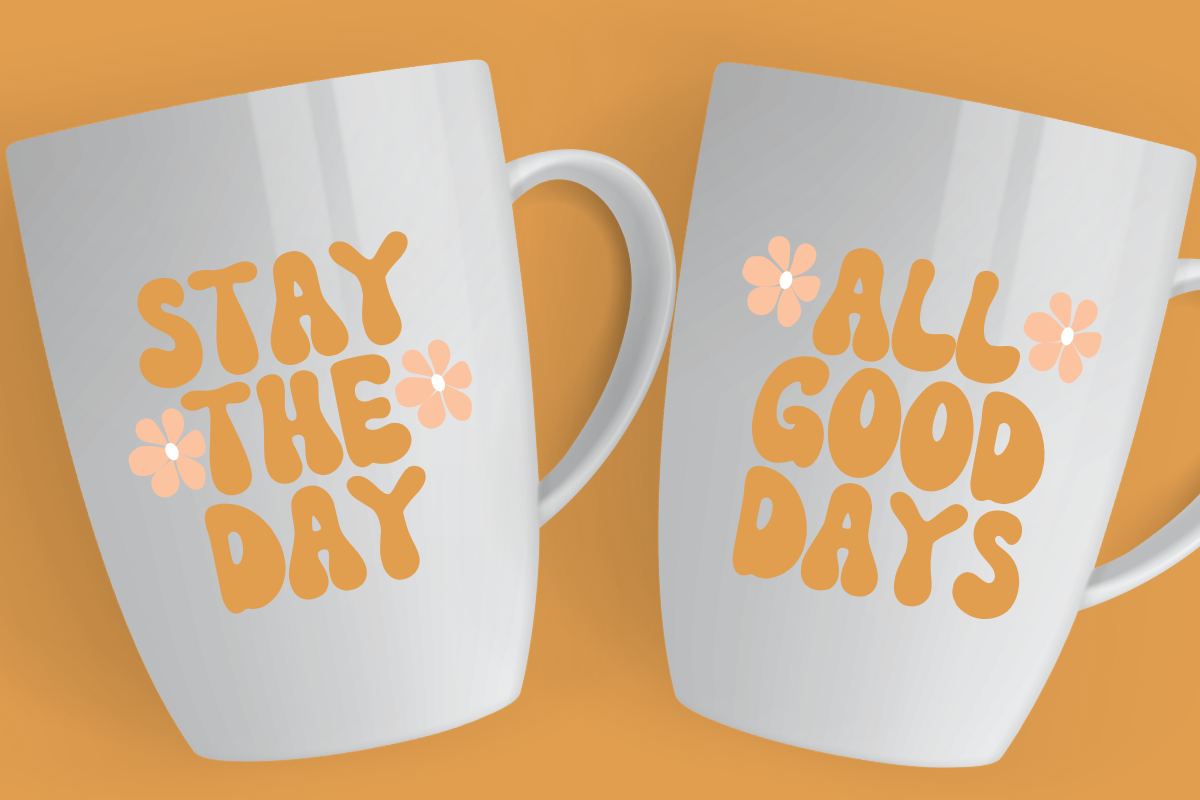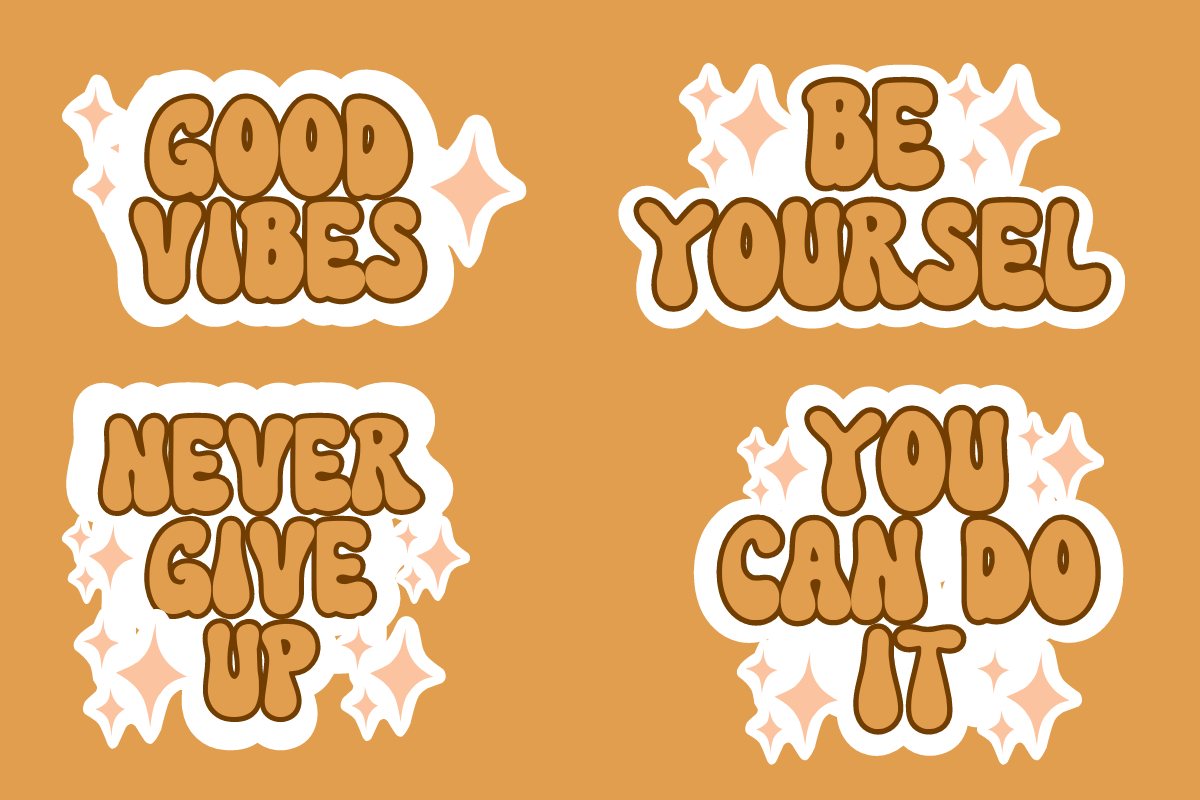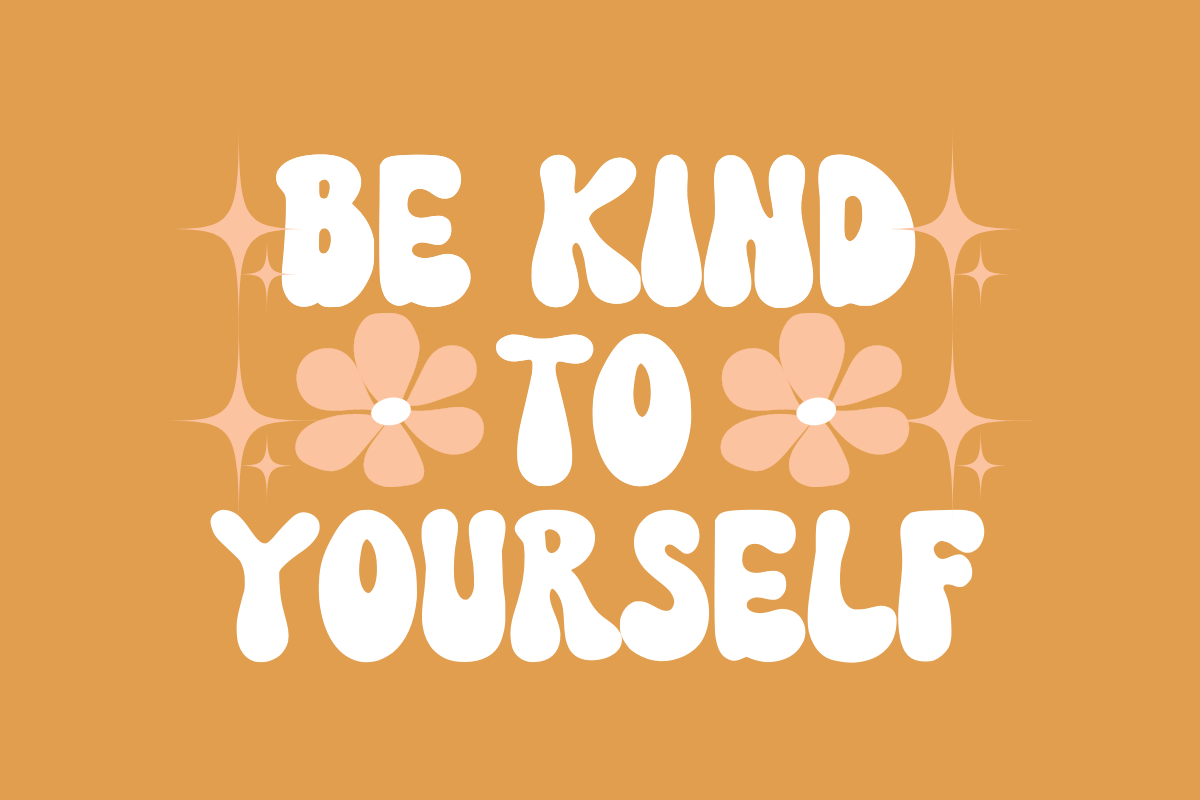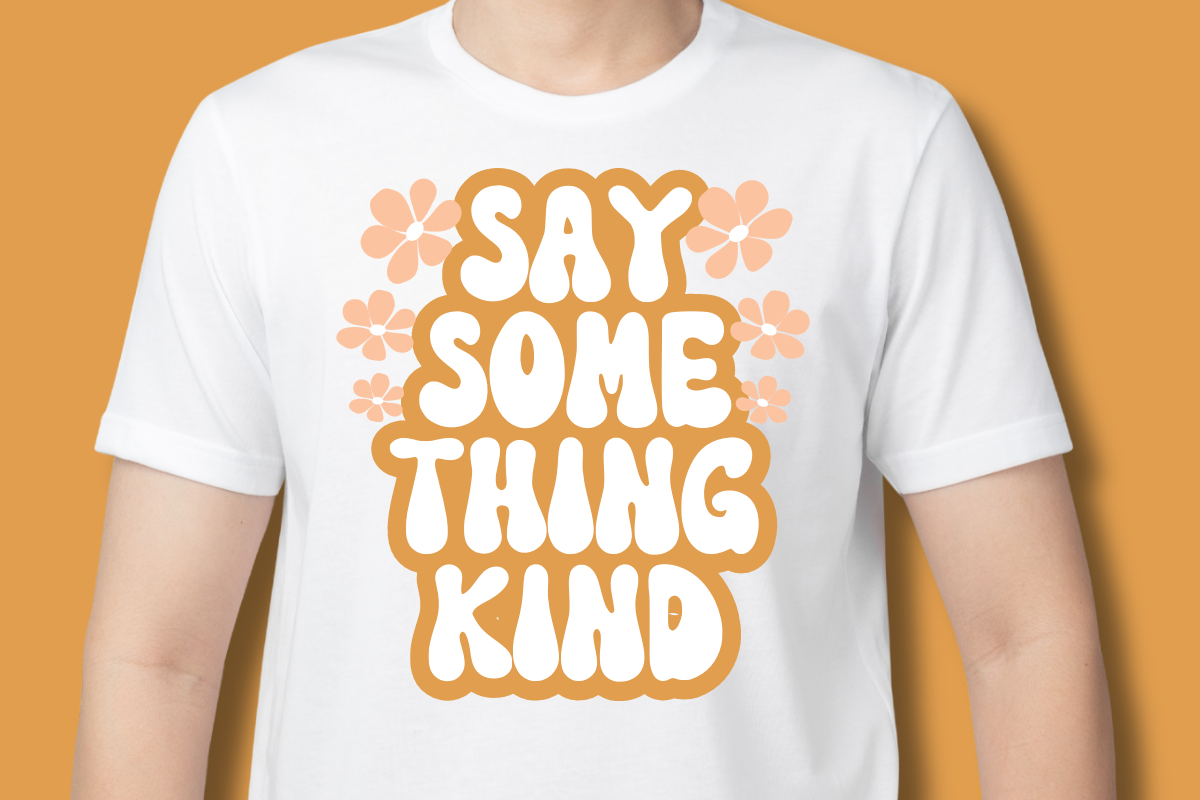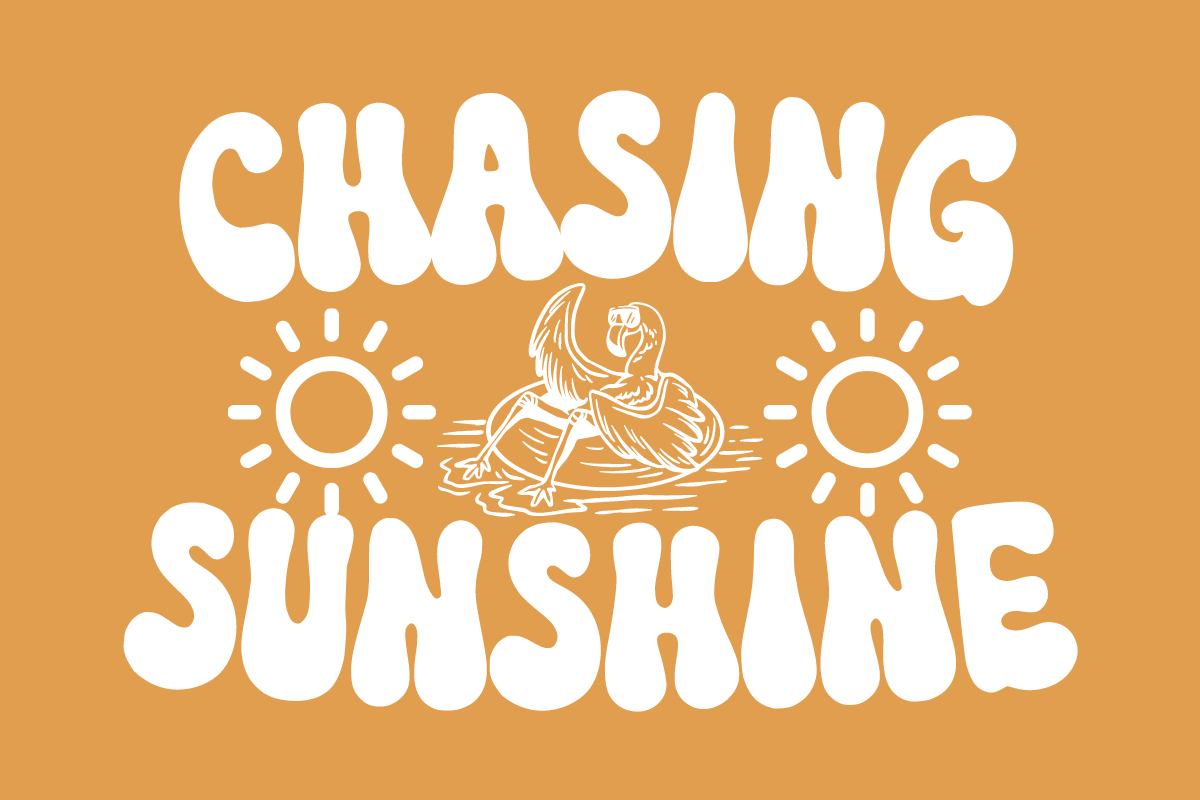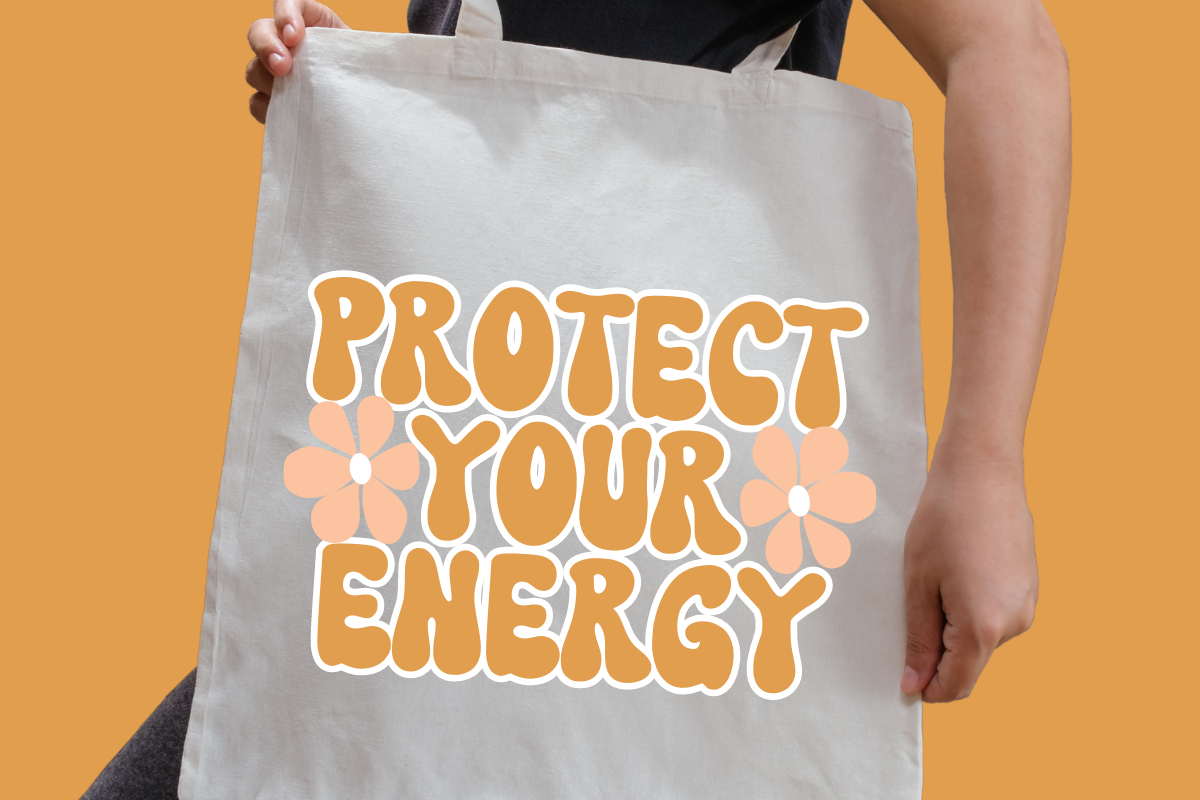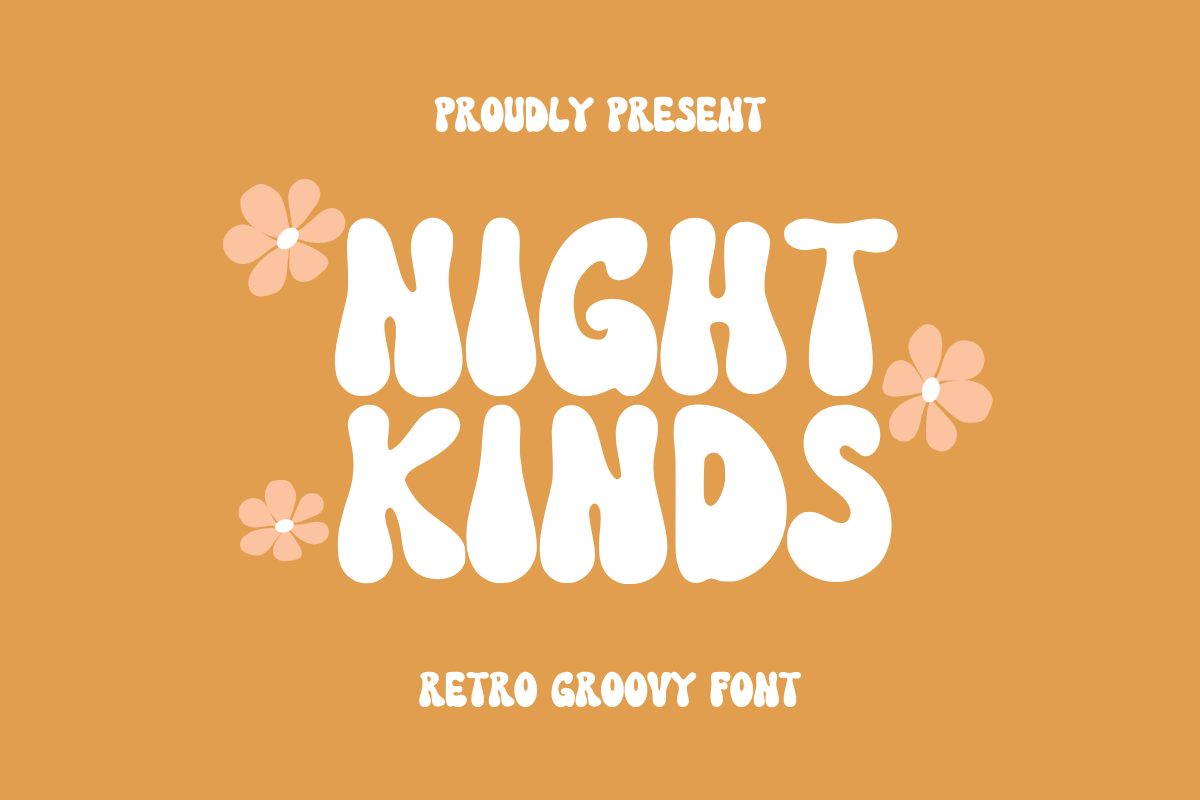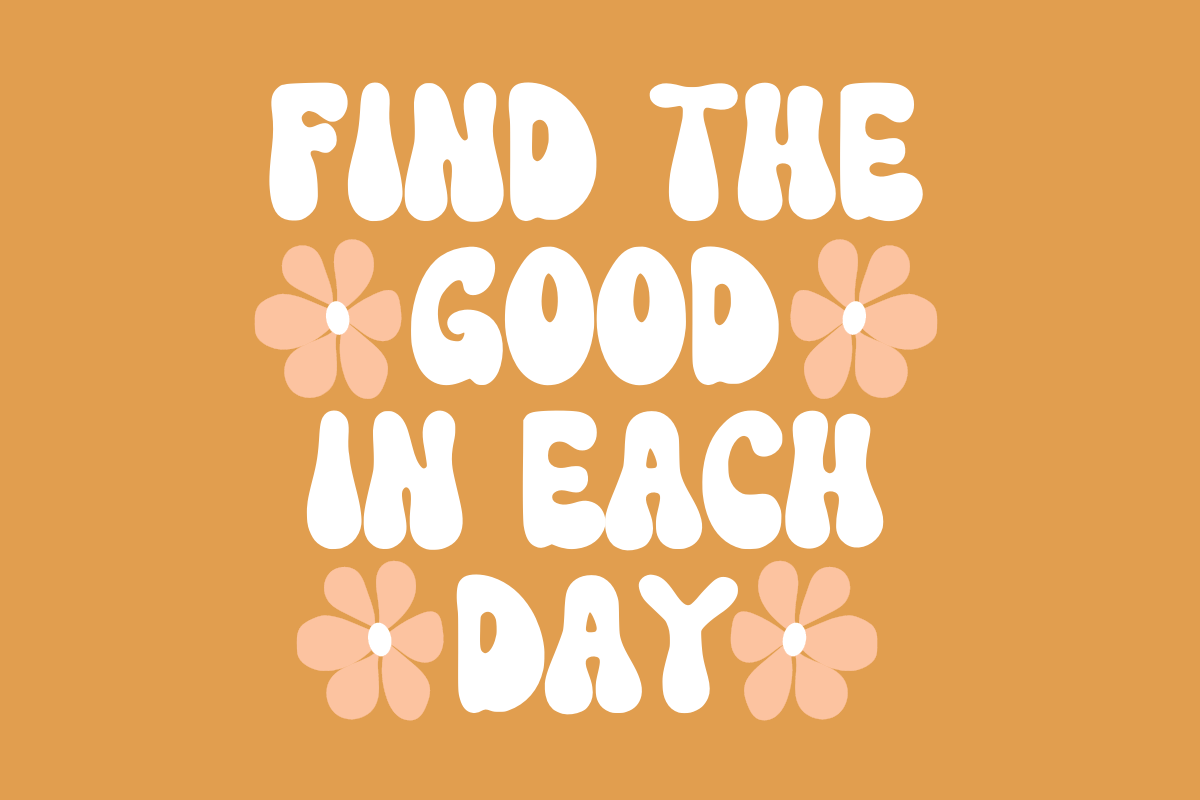
Night Kinds - Retro Groovy Font
Hi, Introducing Night Kinds - Retro Groovy Font
A font with a modern style based on a minimalist monoline shape that is touched in a modern and elegant style. This font is perfect for a variety of creative needs such as printing, books, titles, headlines, photography, embellishments, branding, logos, and more.